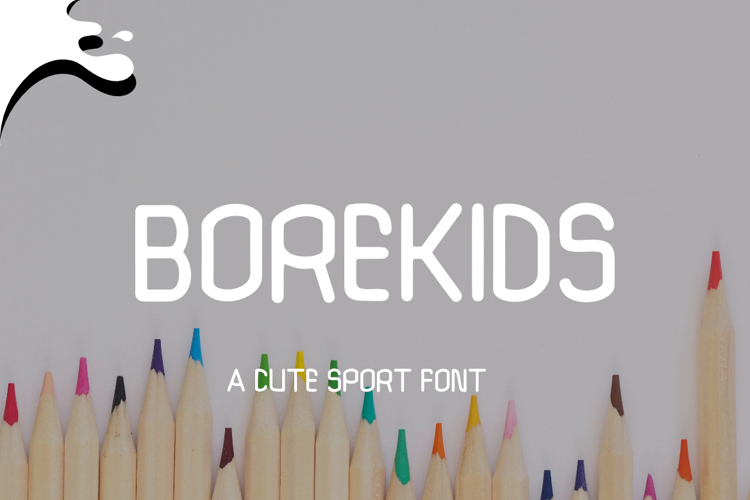
Borekids Font
**Borekids Cute Sport Font**, inspired by cute sport typography. This font is made with a high premium quality level which you can use as flyers, quotes, posters, banners, packaging, merchandise, logotypes and much more.